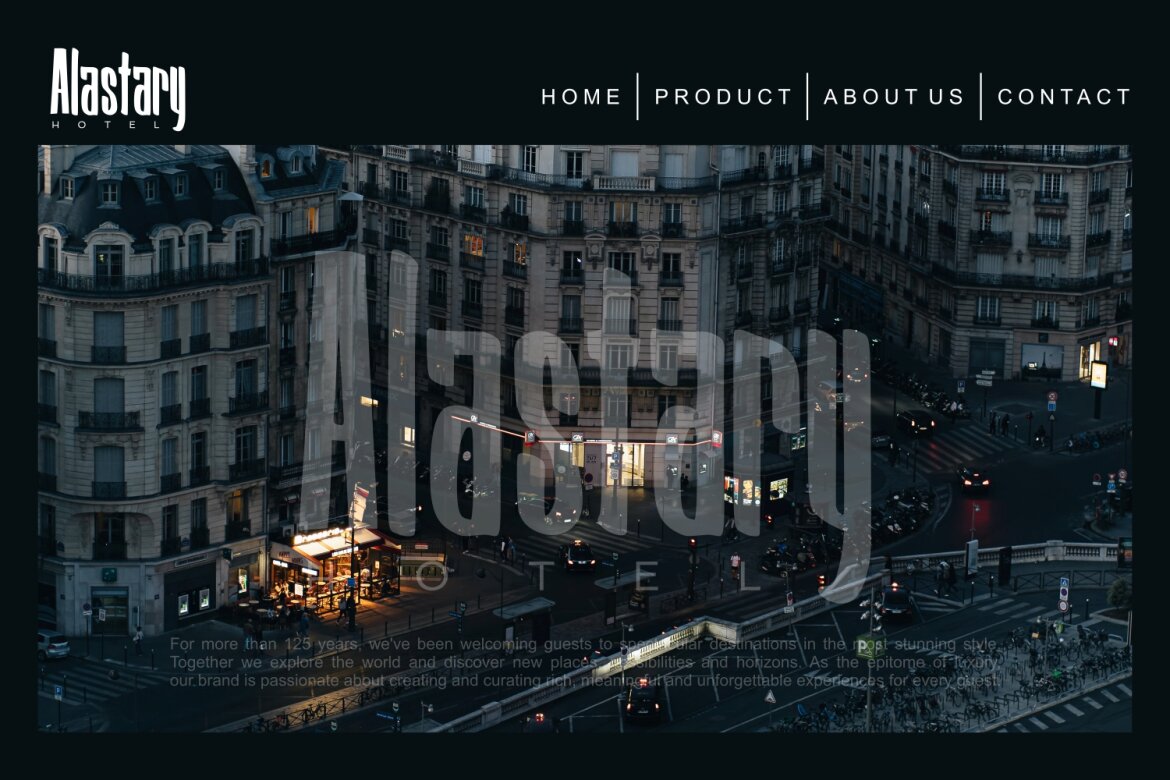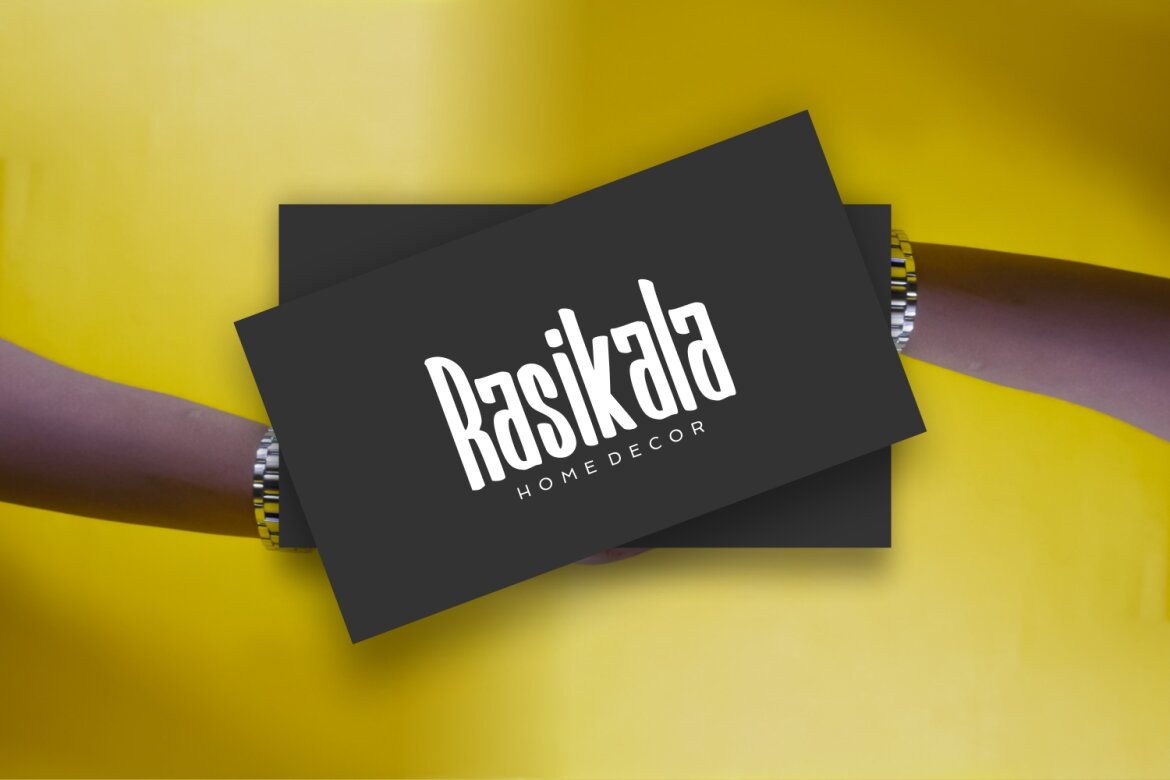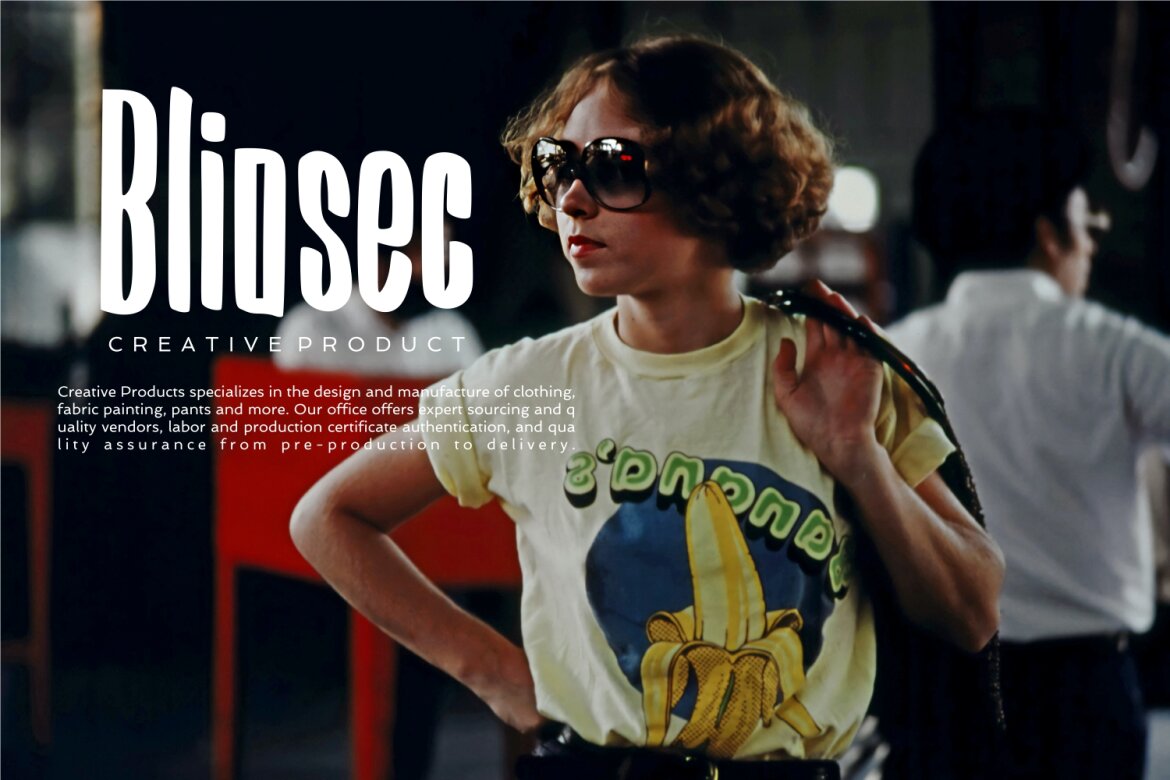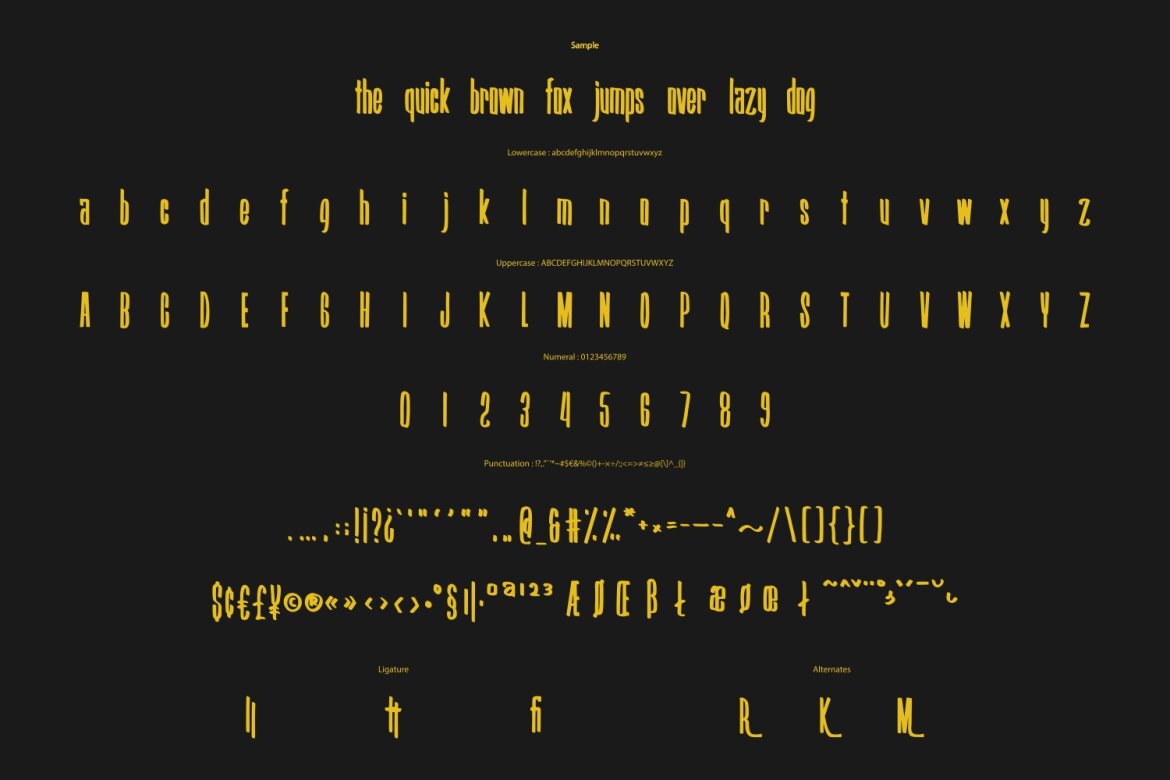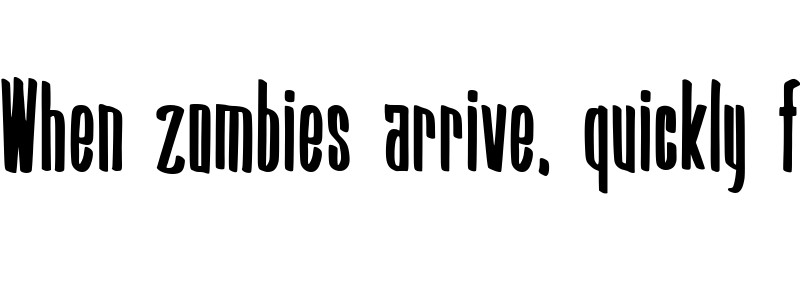
Helphoted Bold Condensed FREE Font
Helphoted
Helphoted - Bold Condensed with a calligraphy style, So beautiful on invitation like greeting cards, branding materials, business cards, quotes, posters, and more!
• Tons of glyphs
• Alternates and Ligatures